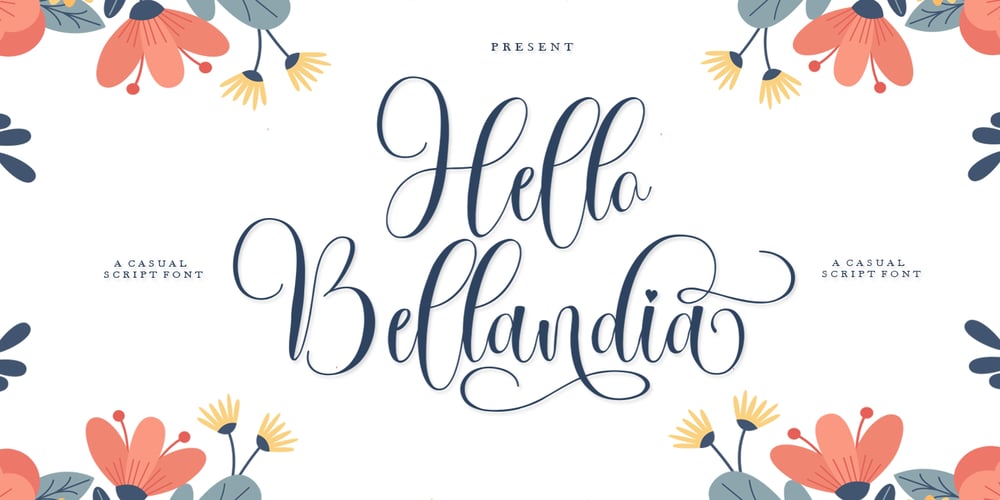
Hello Bellandia Font Family was designed by Ikhsan Maulana and published by IM Studio. Hello Bellandia contains 1 styles and family package options. Hello Bellandia is a new modern script font with an irregular base line. Hello Bellandia looks beautiful on wedding invitations, thank you cards, quotes, greeting cards, logos, business cards and more. Perfect for use in ink or watercolors. Includes initial and final letters, alternatives and multi-language support.